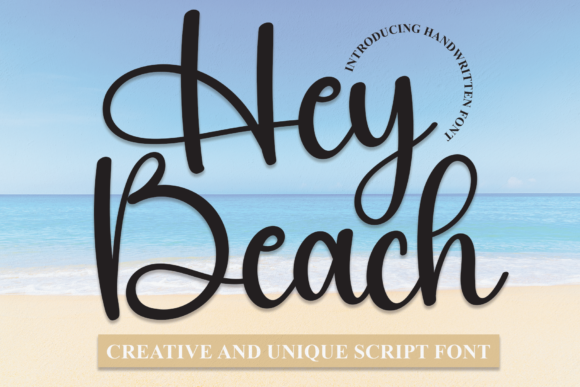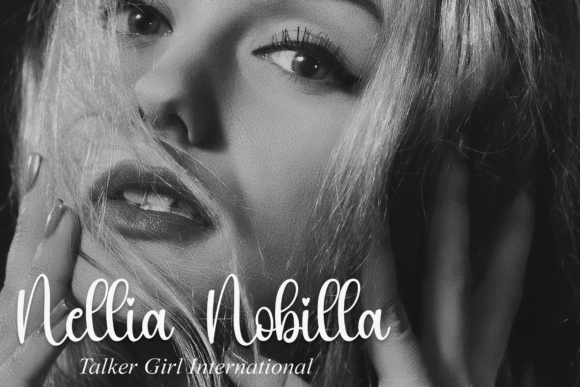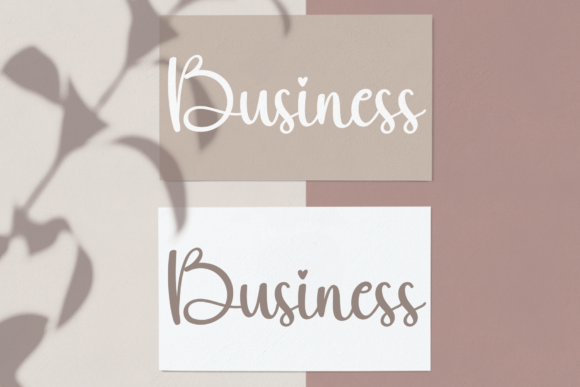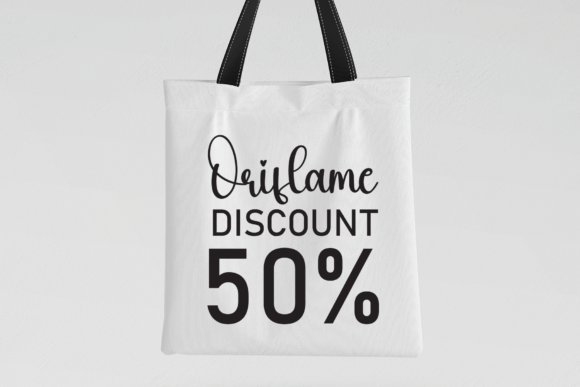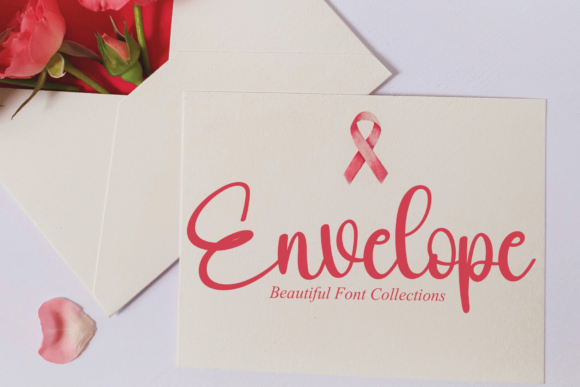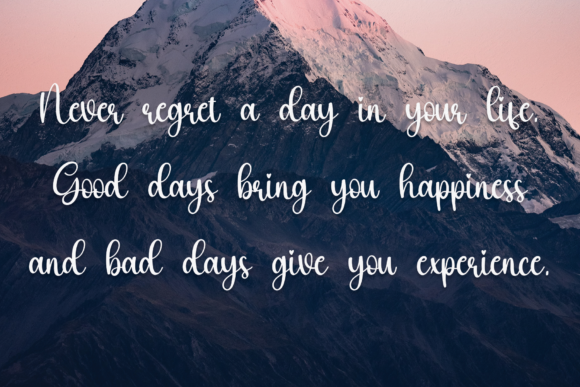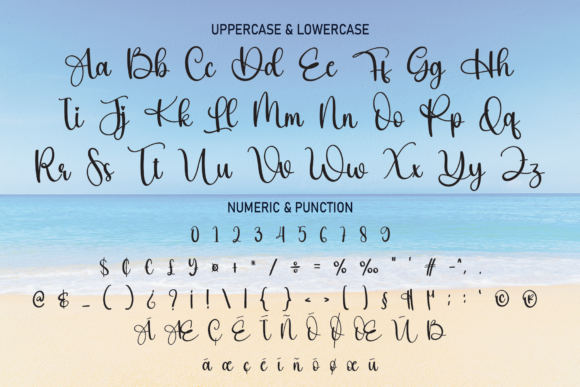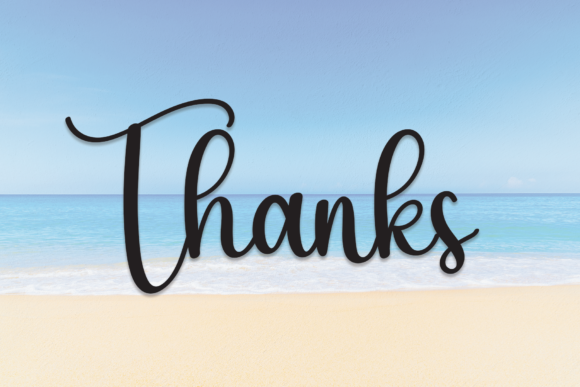
Hey Beach Font
About Hey Beach Font
Hey Beach is a fun and friendly handwritten font that injects a sense of joy and playfulness into any design idea. With its unique charm, this font inspires creativity, encouraging you to create lovely and standout designs.
The fun and friendly nature of Hey Beach makes it versatile for a variety of design applications. Whether you’re working on branding, logos, invitations, or any creative project, this font adds a whimsical and approachable vibe to your designs.
Hey Beach’s handwritten style contributes to its personal and authentic feel, making it ideal for projects that require a more casual and expressive touch. The font’s ability to turn any design idea into a standout piece makes it a valuable asset for designers seeking a playful and distinctive typographic element.
In summary, Hey Beach is more than just a font; it’s a fun and friendly design asset that brings a unique charm to your creative projects. Whether applied to branding or various design needs, Hey Beach stands out as a font that sparks inspiration and adds a delightful touch to every project it graces.